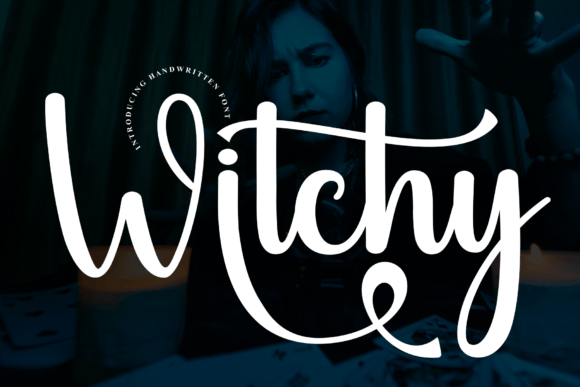
Introducing Witchy Font, the perfect blend of sweetness and friendliness in a handwritten display font. Created by the talented William Jhordy, this font is sure to captivate and inspire users in search of the best fonts for app design.
With its cute and playful nature, Witchy Font adds a delightful touch to any design project. Whether you're creating wedding invitations, greeting cards, or simply want to infuse your designs with a fun-loving vibe, this font is a must-have.
Immerse yourself in the whimsical world of Witchy Font as it effortlessly brings your words to life. Its charmingly uneven lines and unique character variations lend an endearing quality to your typography, leaving a lasting impression on your audience.
Crafted with utmost care and attention to detail, Witchy Font offers a wide range of possibilities for your creative endeavors. Its script style effortlessly conveys a sense of elegance and grace, making it perfect for adding a touch of sophistication to your app designs.
But Witchy Font isn't just about aesthetics; it's also about functionality. Its legibility and clarity ensure that your message will be easily understood, even in small sizes or on digital platforms. Say goodbye to dull and boring fonts, and let Witchy Font elevate your designs to new heights.
Unleash your creativity and let Witchy Font be your trusted companion in crafting visually stunning and engaging designs. Its versatility allows it to seamlessly adapt to various design styles, making it an ideal choice for both professional designers and beginners alike.
Embrace the magic of Witchy Font and watch as it transforms your designs into captivating works of art. Its enchanting allure will draw your audience in, leaving them mesmerized by the unique charm it brings to your projects.